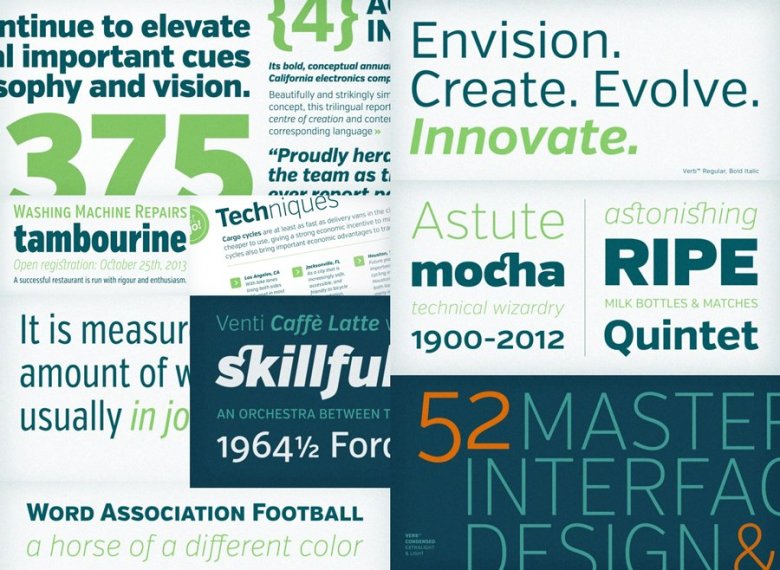
Verb Font
Verb is a sans-serif family that’s confident, friendly and energetic. At text sizes it’s highly legible, while at larger sizes it reveals lively shapes and personality.